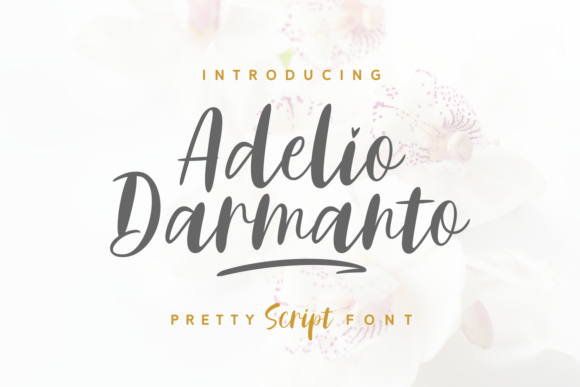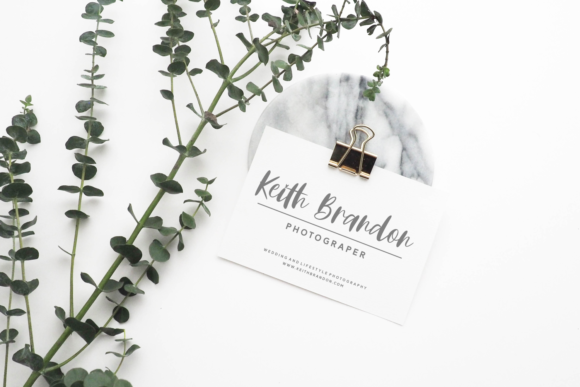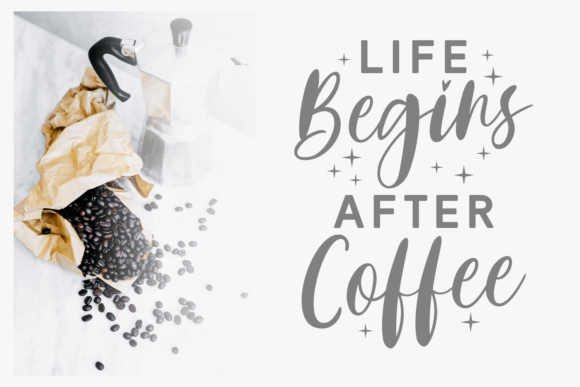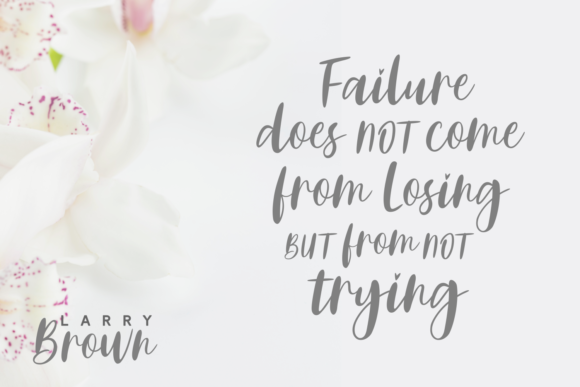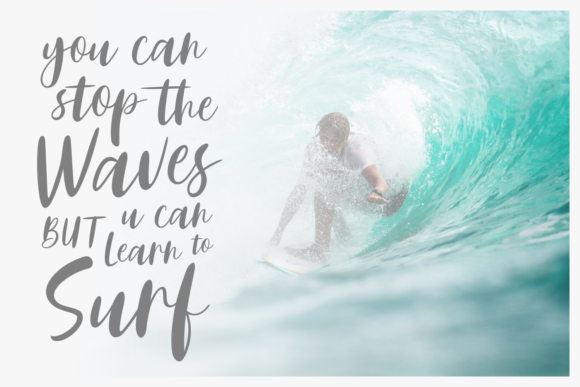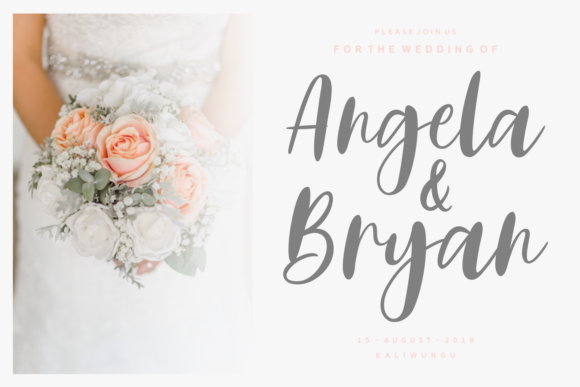
Adelio Darmanto Font
About Adelio Darmanto Font
Adelio Darmanto is a fun and sweet looking script font, perfect for use in feminine projects. This font looks great in modern designs by adding a delicate quality.